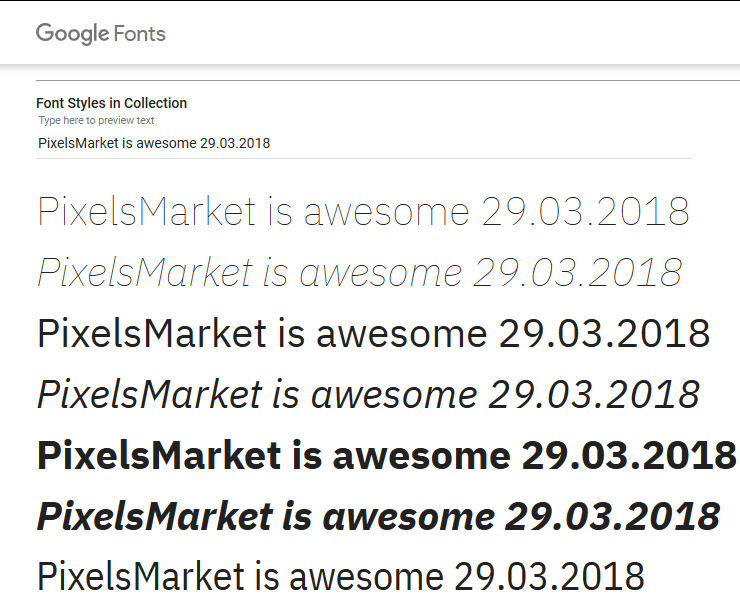
Plex: A free font from IBM
Plex is a free font developed IBM Brand & Experience team (BX&D) for use as a corporate typeface for IBM. The font was released open-source and anybody can use it.
The family includes a SansSans CondensedMono, and Serif and has excellent legibility in print, web and mobile interfaces.
Plex’s three designs work well independently, and even better together. Use the Sans as a contemporary compadre, the Serif for editorial storytelling, or the Mono to show code snippets. The unexpectedly expressive nature of the italics give you even more options for your designs.